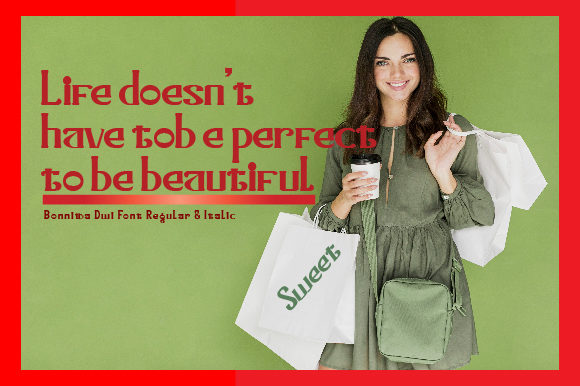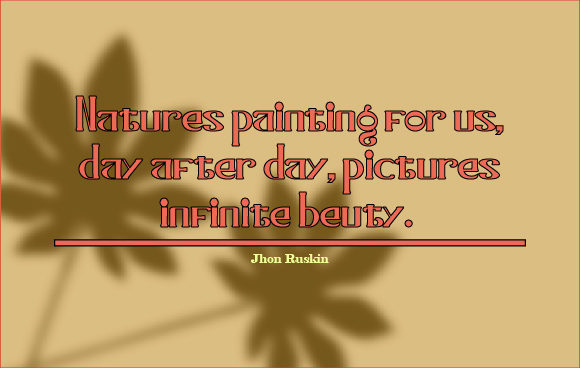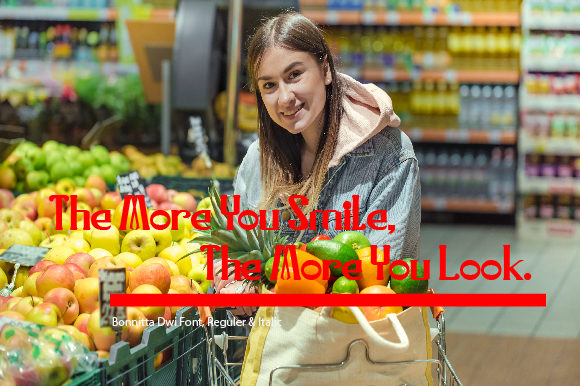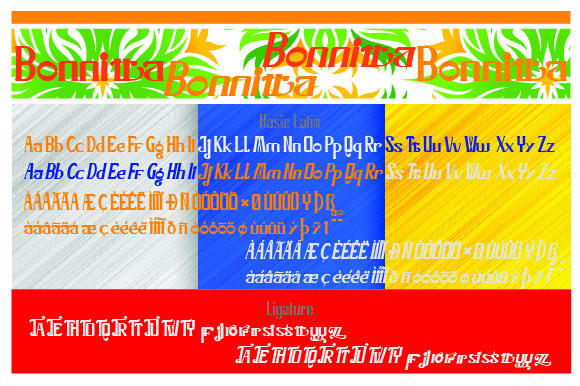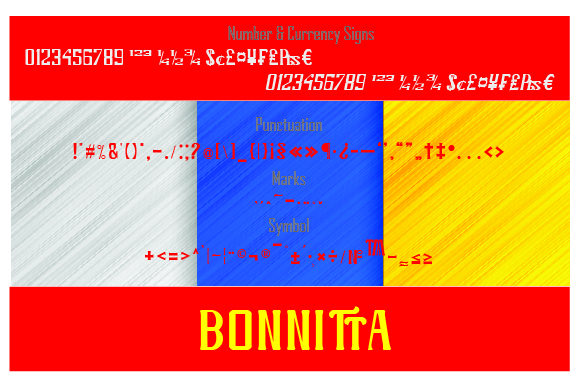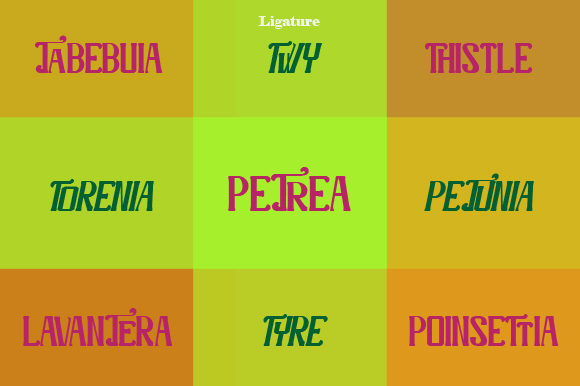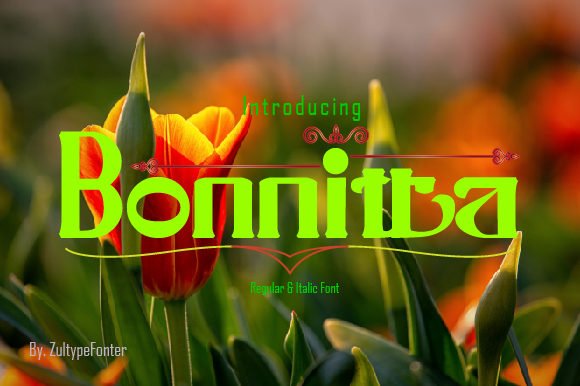
Have you ever stared at a blank page, trying to bring your vision to life, only to feel stuck by the font you’re using? We’ve all been there. But what if I told you that there’s a font that can help you break through that creative barrier and take your projects to the next level?
Introducing Bonnitta Font, a unique and captivating serif font designed to elevate your creative ideas. With its masterful design, Bonnitta Font is the perfect addition to any project, from graphic design to typography. Whether you’re a seasoned designer or just starting out, this font has the potential to become a true favorite and help you achieve your design goals. By incorporating Bonnitta Font into your workflow, you’ll be able to create visually stunning and engaging designs that leave a lasting impression.
Bonnitta Font Key Features
- Font Size: 1000 glyphs, including Latin, Greek, Cyrillic, and Devanagari scripts
- Unique Characteristics: Bonnitta Font features a unique blend of modern and vintage elements, with intricate details and ornate flourishes
- Language Support: Supports multiple languages, including English, Spanish, French, German, Italian, Portuguese, Dutch, Russian, Chinese, Japanese, and many more
- Font Style: Bonnitta Font comes in 4 different styles: Regular, Italic, Bold, and Bold Italic
Bonnitta Font Review
When I first laid eyes on Bonnitta, I knew it was something special. The elegant curves and refined details ✨ make it a perfect fit for any design project that needs a touch of sophistication. The font’s versatility shines through in its ability to work well in both print and digital applications. Whether you’re designing a luxury brand or a high-end website, Bonnitta is sure to impress.
- What works well: ✨
- Elegant curves and refined details
- Versatile and works well in both print and digital applications
- Perfect for luxury brands and high-end designs
- Limitations: ⚠️
- May be too ornate for some design projects
- Can be difficult to read in smaller font sizes
Overall, I’m thoroughly impressed with Bonnitta. While it may have some limitations, its strengths far outweigh its weaknesses. If you’re looking for a font that exudes luxury and sophistication, Bonnitta is definitely worth considering. Just be sure to use it sparingly and in the right context to get the most out of its elegant design.
Bonnitta Font: A Practical Application Guide
Tips for Getting the Most Out of Bonnitta Font
Experiment with different font sizes and colors to create visual interest. Use the font to create headings and subheadings to organize your content. Consider using the font in combination with other fonts to create a unique and visually appealing design.
Bonnitta Font is ideal for use in creative projects such as logos, brochures, and posters. It’s also a great choice for use in digital design projects such as social media graphics and website headers.
Alternatives to Bonnitta Font for Designers
Great Vibes is a modern, elegant script font designed by Handmade Fonts. It’s perfect for creating a sense of luxury and sophistication in branding, invitations, and wedding designs. Great Vibes is a great alternative to Bonnitta Font for designers who want a more refined and classic look.
Comparison to Bonnitta Font: Great Vibes has a more refined and elegant feel, while Bonnitta Font is more playful and whimsical.
Carolyna Pro is a high-end script font designed by Carolyna Sanchez. It’s ideal for creating a sense of glamour and sophistication in fashion, beauty, and luxury branding. Carolyna Pro is a great alternative to Bonnitta Font for designers who want a more sophisticated and elegant look.
Comparison to Bonnitta Font: Carolyna Pro has a more sophisticated and elegant feel, while Bonnitta Font is more playful and whimsical.
Alex Brush is a beautiful, elegant script font designed by Lauren Thompson. It’s perfect for creating a sense of warmth and sophistication in branding, invitations, and wedding designs. Alex Brush is a great alternative to Bonnitta Font for designers who want a more refined and classic look.
What font sizes and styles are included in the Bonnitta Font family?
The Bonnitta Font family includes a range of font sizes and styles, including regular, italic, bold, and bold italic. The font family also includes a range of font sizes, from 8pt to 72pt, making it suitable for use in a variety of design applications, from small text labels to large display headings.